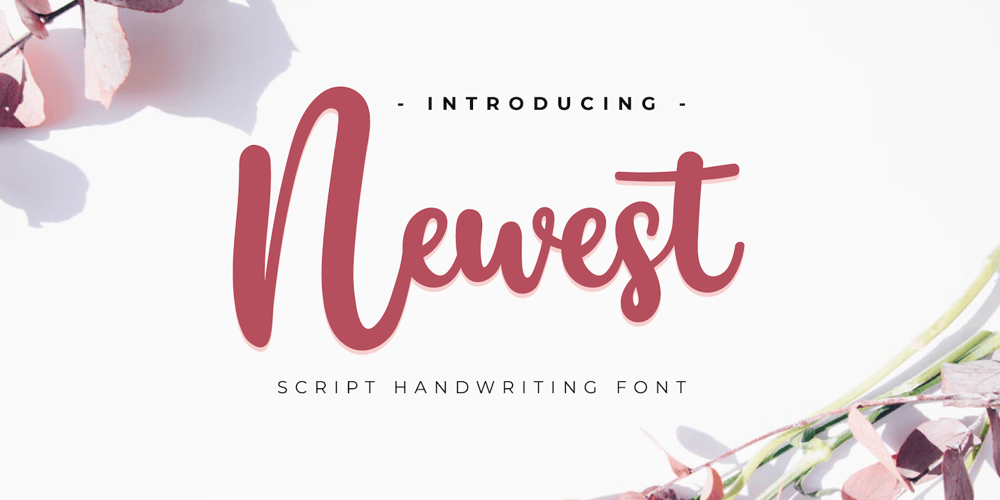
Newest Font Family was designed by Rozikan and published by Twinletter. Newest contains 1 styles and family package options. Introduces our newest “Newest” modern handwriting script font which has characteristic beautiful curves on each letter. This beautiful font is designed with attention to harmony in beauty when you use it in your designsThis font is designed with a natural touch of handwriting which is refined to create a portion and composition that suits your needs. So this font is suitable for craft, children’s writing, adventure posters, food banner titles, wedding invitations, product packaging logos, quotes, social media page covers, furniture banner headlines, book covers, and much more.